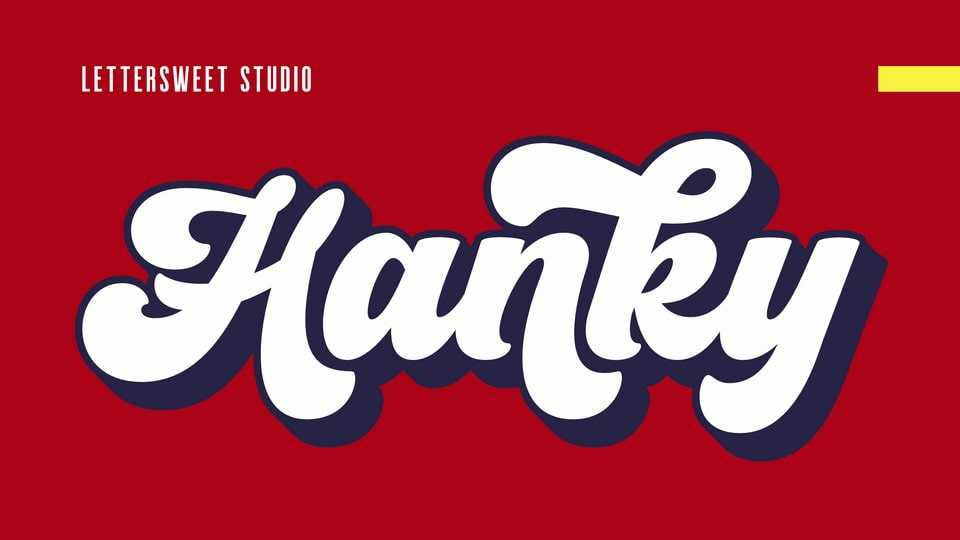
Download Hanky font, a bold script retro typeface with a playful attitude and layered versatility inspired by classic sign painting and retro branding.